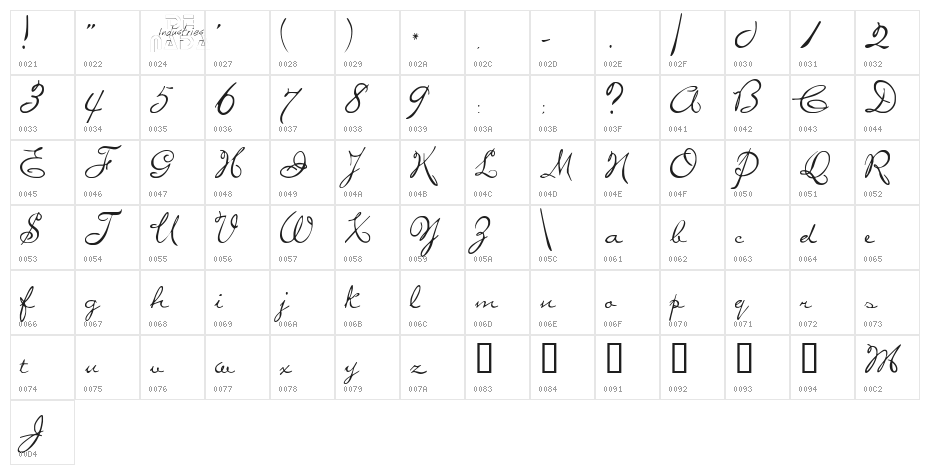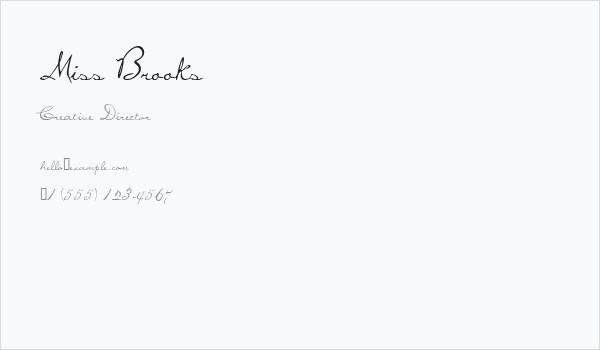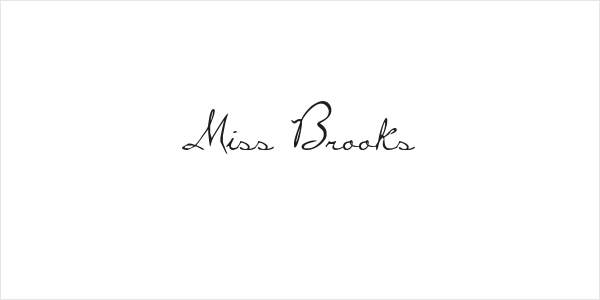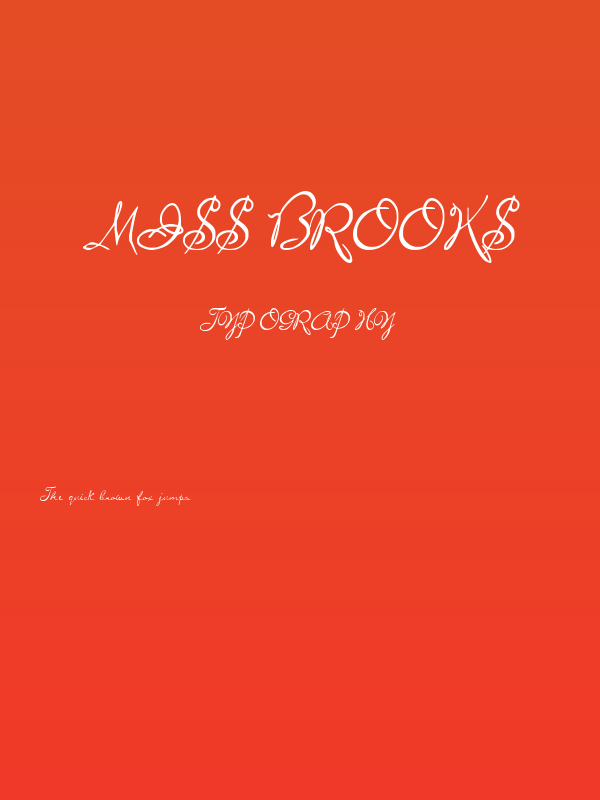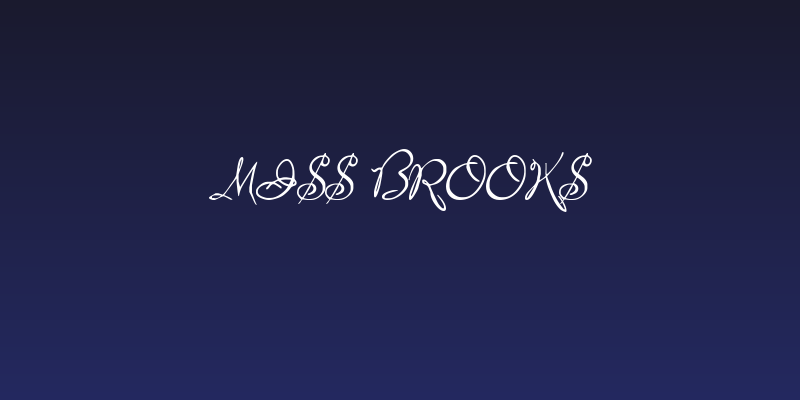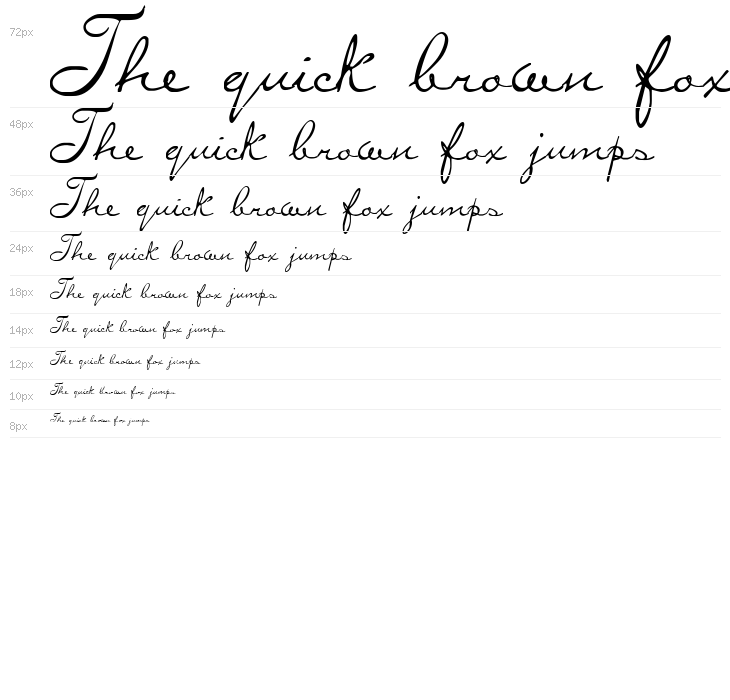
Miss Brooks Font
Miss Brooks Description
This font exhibits a flowing, cursive style with elegant loops and swashes, giving it a sophisticated and artistic appearance. The uppercase letters are particularly ornate, featuring intricate connections and flourishes that add a touch of elegance. The lowercase letters maintain a consistent flow, enhancing readability while preserving the decorative nature. Numbers are styled to match the cursive theme, with smooth curves and a slight slant. Special characters are integrated seamlessly, maintaining the overall aesthetic. This font is ideal for projects that require a personal, handwritten touch, such as invitations, greeting cards, or branding materials.
| Proposed Projects | Ideal for wedding invitations, greeting cards, branding, and personal stationery. |